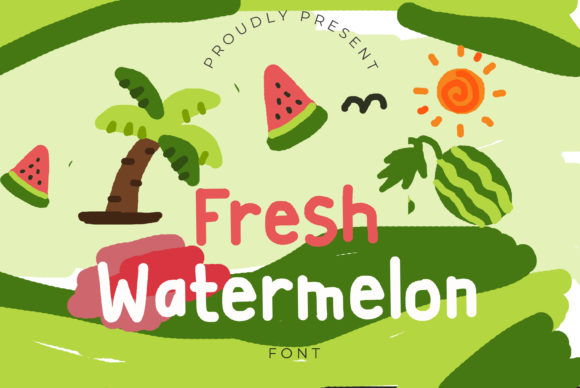
Step into the vibrant world of Fresh Watermelon, a display font family that radiates uniqueness and charm! This remarkable creation by dangglemstudio is not just a collection of letters; it's an artistic expression that brings life to your designs. With its clean and crisp lines, Fresh Watermelon is a delightful choice for captivating logos, eye-catching posters, and stunning branding materials. Unleash your creativity and watch as your designs flourish with a touch of Fresh Watermelon's irresistible charm.
Fresh Watermelon doesn't shy away from standing out. Its distinctive curves and playful personality make it a perfect fit for adding a dash of whimsy and fun to your creative projects. Let your imagination soar as you craft invitations that exude joy, greeting cards that spread warmth, or social media posts that demand attention. Fresh Watermelon has the power to transform the ordinary into the extraordinary.
But Fresh Watermelon's versatility doesn't end there. Its clean and legible structure makes it an excellent choice for professional settings as well. Craft elegant resumes that showcase your skills and leave a lasting impression on potential employers. Create presentations that captivate your audience and convey your message with clarity and style. Fresh Watermelon's ability to blend creativity with professionalism makes it a standout choice for a wide range of design needs.
At its core, Fresh Watermelon is a font that embraces individuality and self-expression. It encourages you to break free from the mundane and embrace your unique creative vision. Whether you're a seasoned designer or just starting your artistic journey, Fresh Watermelon provides the perfect platform to showcase your talent and make a statement.
Don't settle for ordinary fonts that blend into the background. Choose Fresh Watermelon and let your designs blossom with personality and flair. Its clean lines, playful spirit, and unwavering versatility make it an indispensable tool for any creative toolbox. Experience the delightful difference Fresh Watermelon brings to your designs and see how it transforms your creative vision into a captivating reality.